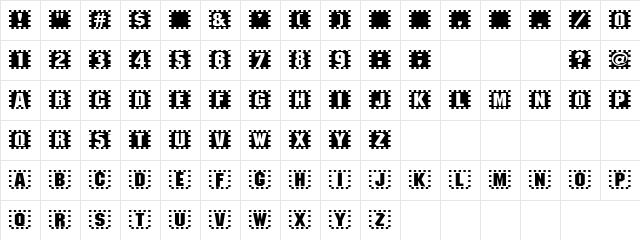
Play Diya Regular
Design Context for Play Diya Typeface
Play Diya is a composed and adaptable typeface that performs quietly and consistently across a wide range of design contexts.